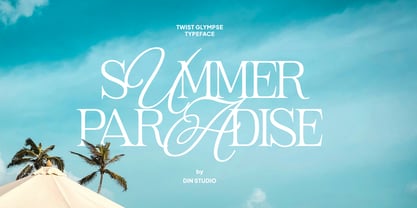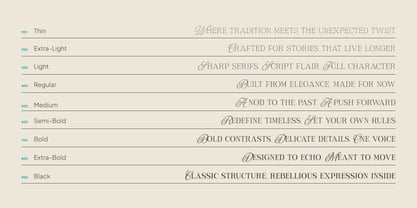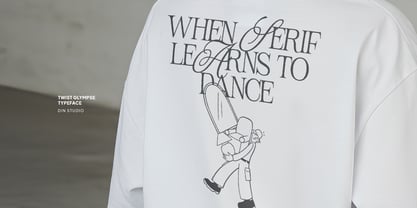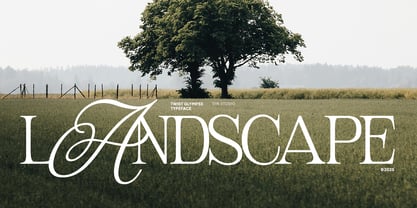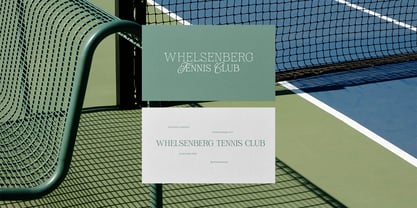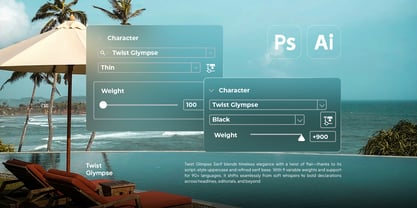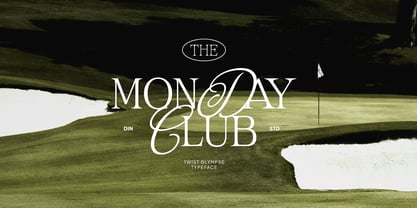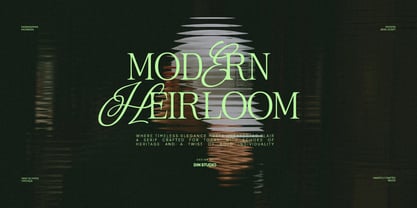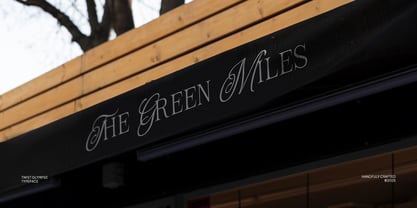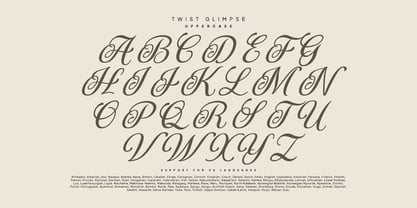
Twist Glimpse
by Din Studio
The Twist Glimpse Font Family was designed by Donis Miftahudin and published by Din Studio. Twist Glimpse contains 9 styles and family package options. More about this family
Twist Glimpse is a distinctive font duo that artfully combines a classic serif with a bold, rebellious script for a striking typographic statement. Both fonts are intentionally designed in uppercase to create a cohesive, harmonious pairing. The serif font offers timeless structure and elegance, while the rebellious script brings an edgy, free-spirited flair with dynamic, expressive strokes. Together, they deliver a perfect balance of tradition and attitude. In addition, enjoy the features here.
Twist Glimpse fits in name cards, branding, packaging, posters, headlines, editorial designs, and many more designs. Find out more ways to use this font by taking a look at the font preview.
Designers: Donis Miftahudin
Foundry: Din Studio